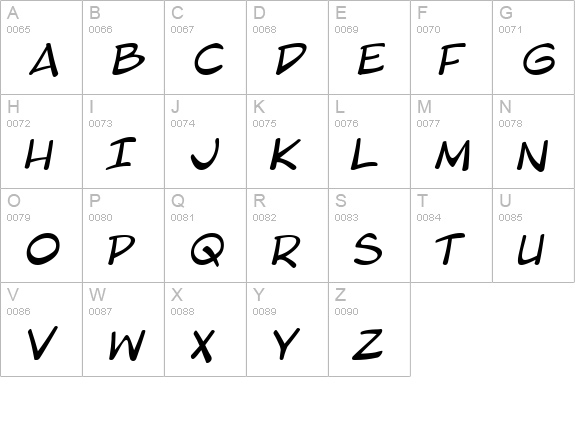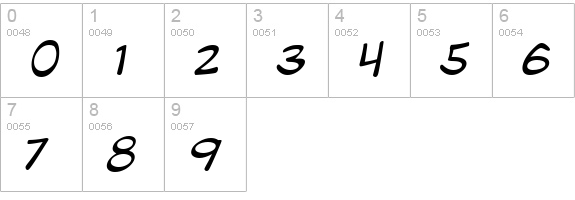
Blambot Pro Lite Italic is a distinctive, italic variant in the Blambot typeface family \xE2\x80\x94 well suited to design and typography projects.
Blambot Pro Lite Italic font is a sleek and modern typeface that exudes elegance and sophistication. Its slanted design adds a touch of flair to any project, making it perfect for adding a stylish twist to your designs. The italicized characters flow seamlessly, creating a sense of movement and dynamism. The best part? Blambot Pro Lite Italic font is available for free! You can easily download it at FontsMarket.com and start using it in your projects right away. Whether you need a font for a website, a poster, or a logo, this versatile typeface is sure to make a statement. Don't miss out on the opportunity to add this beautiful font to your collection today!